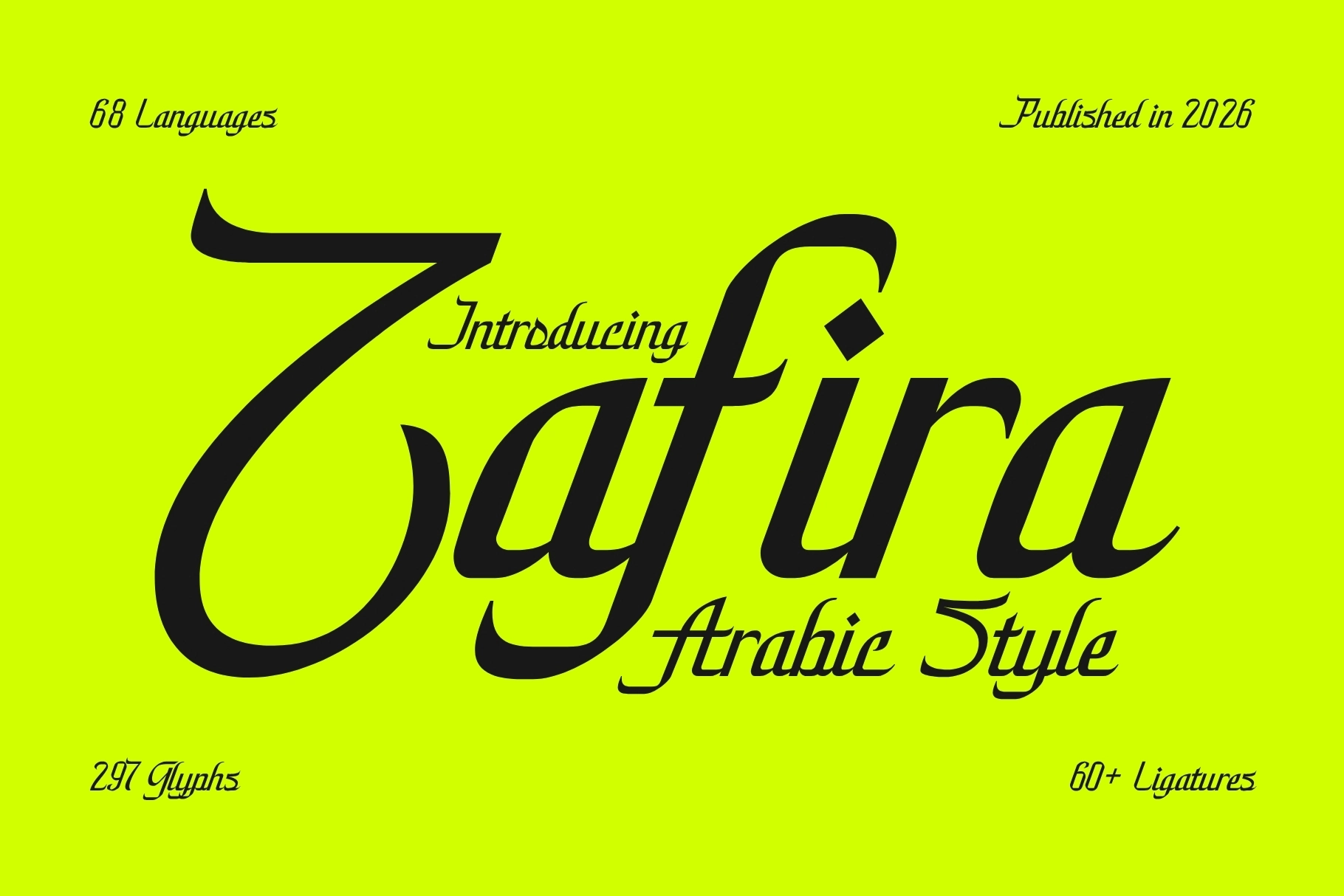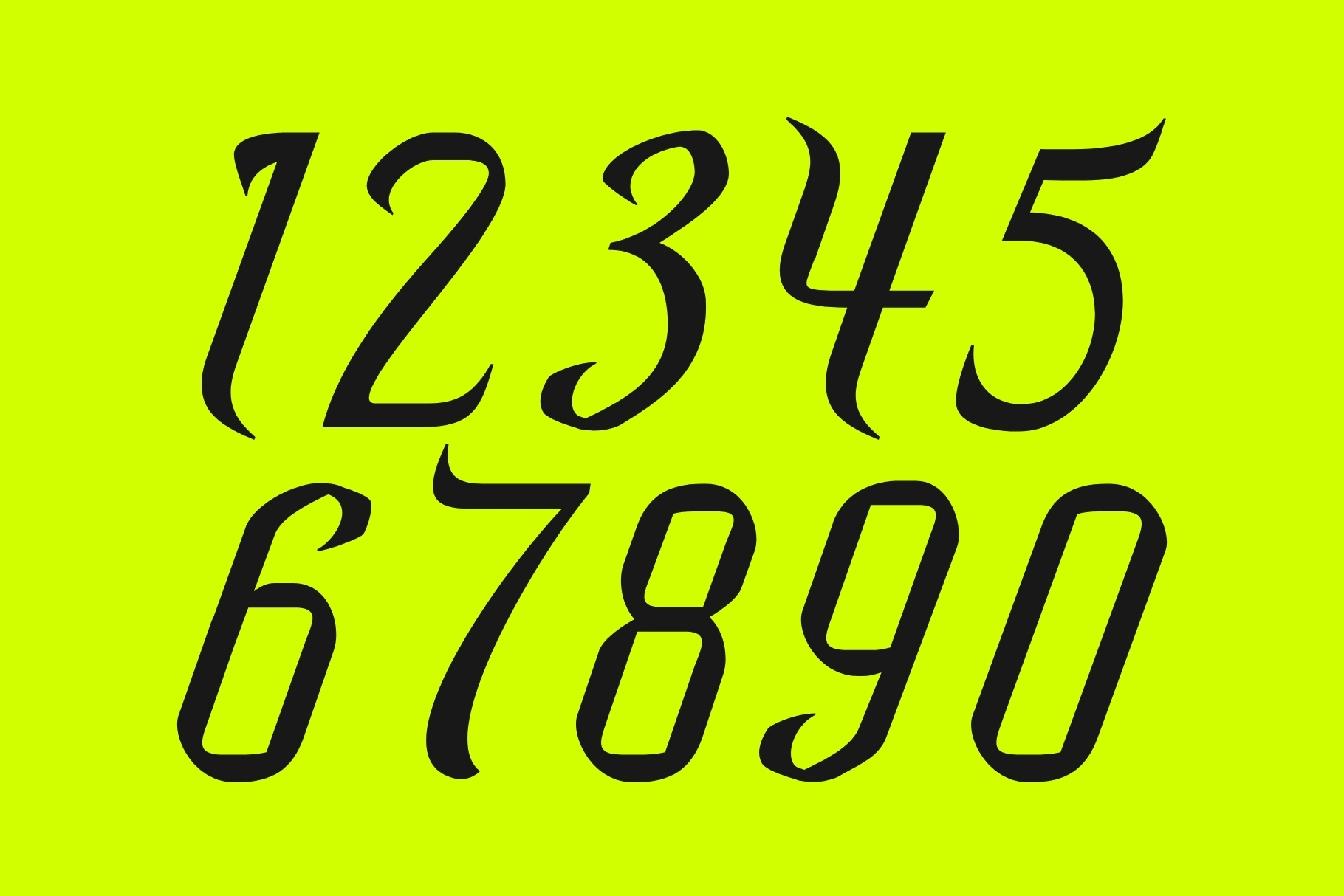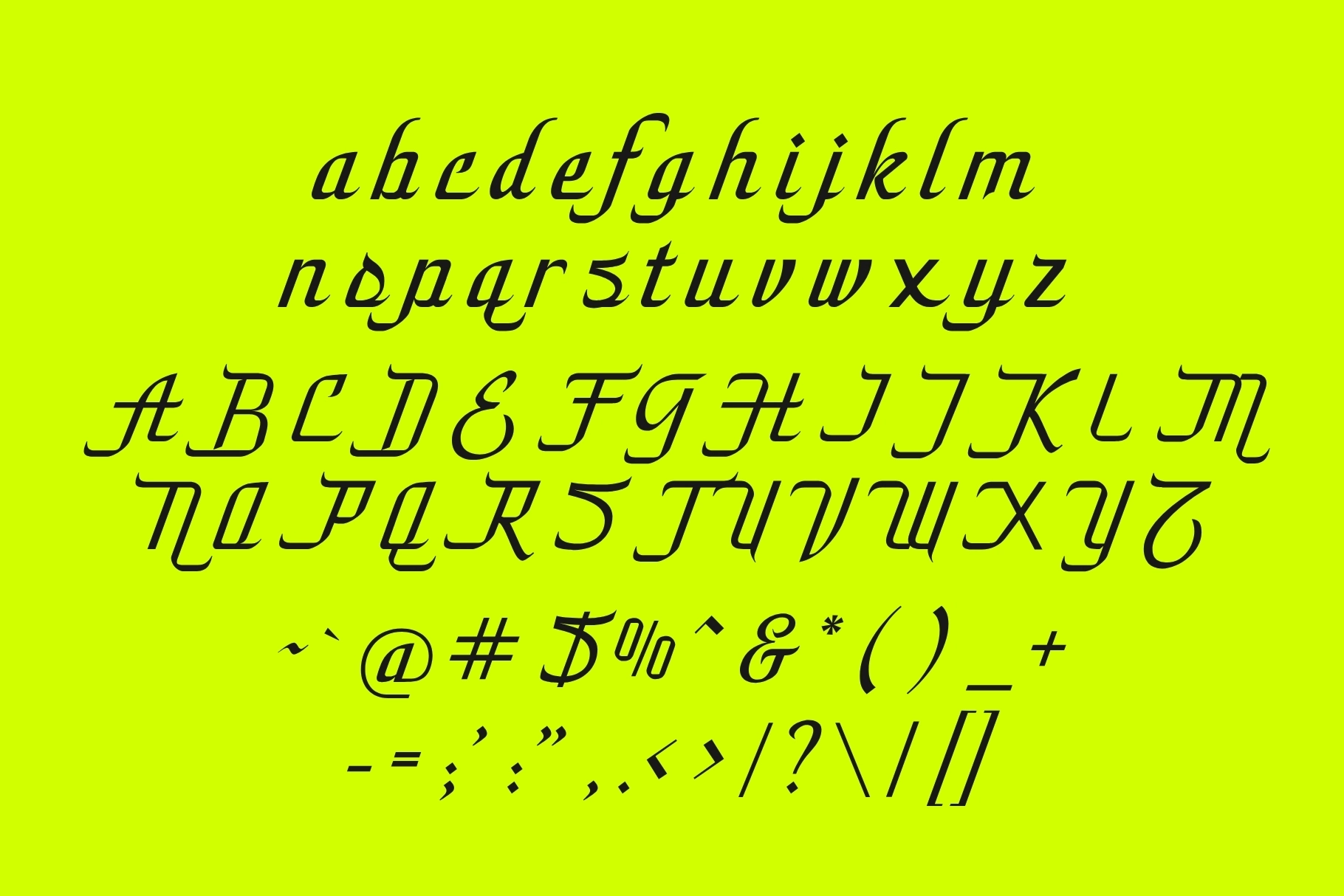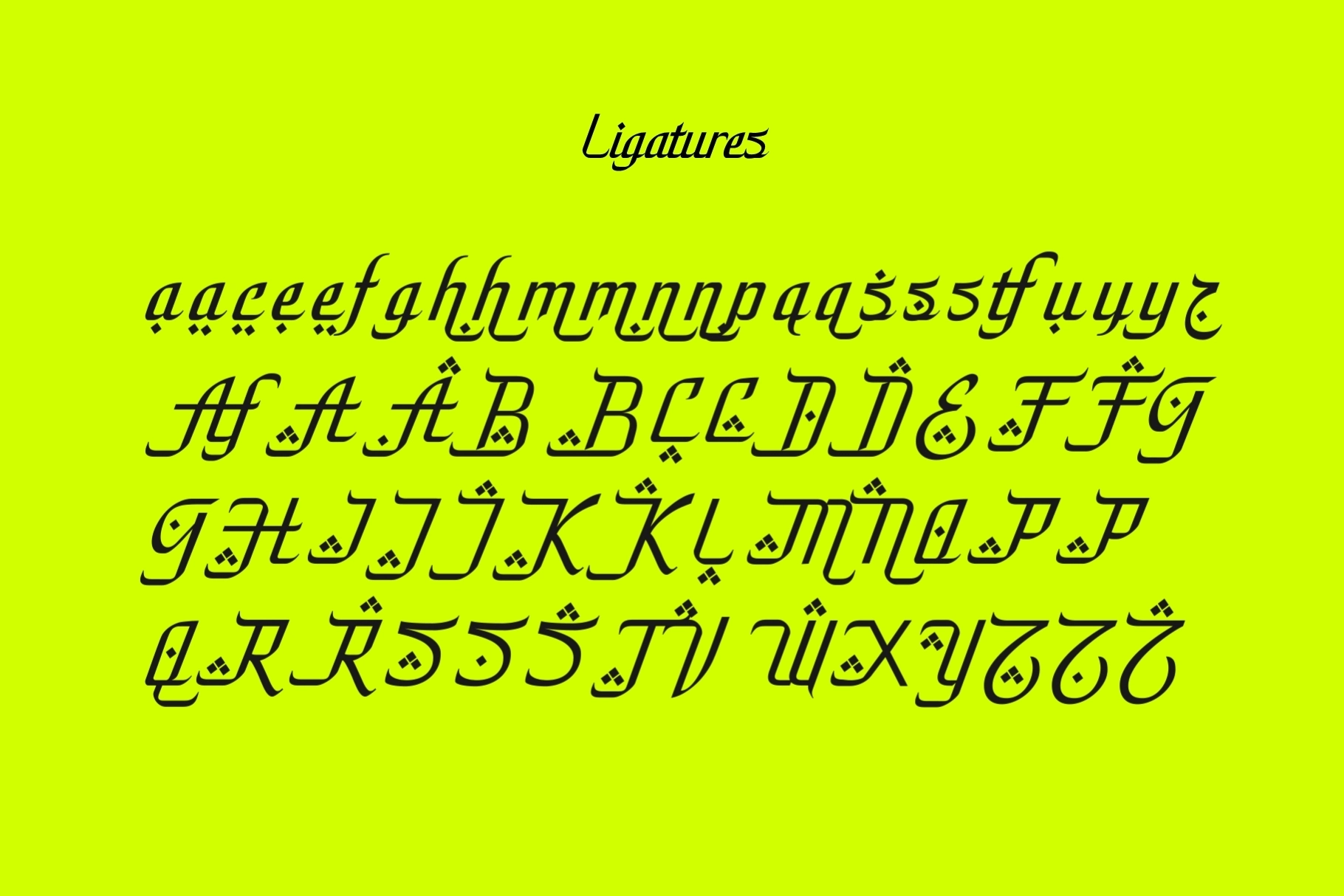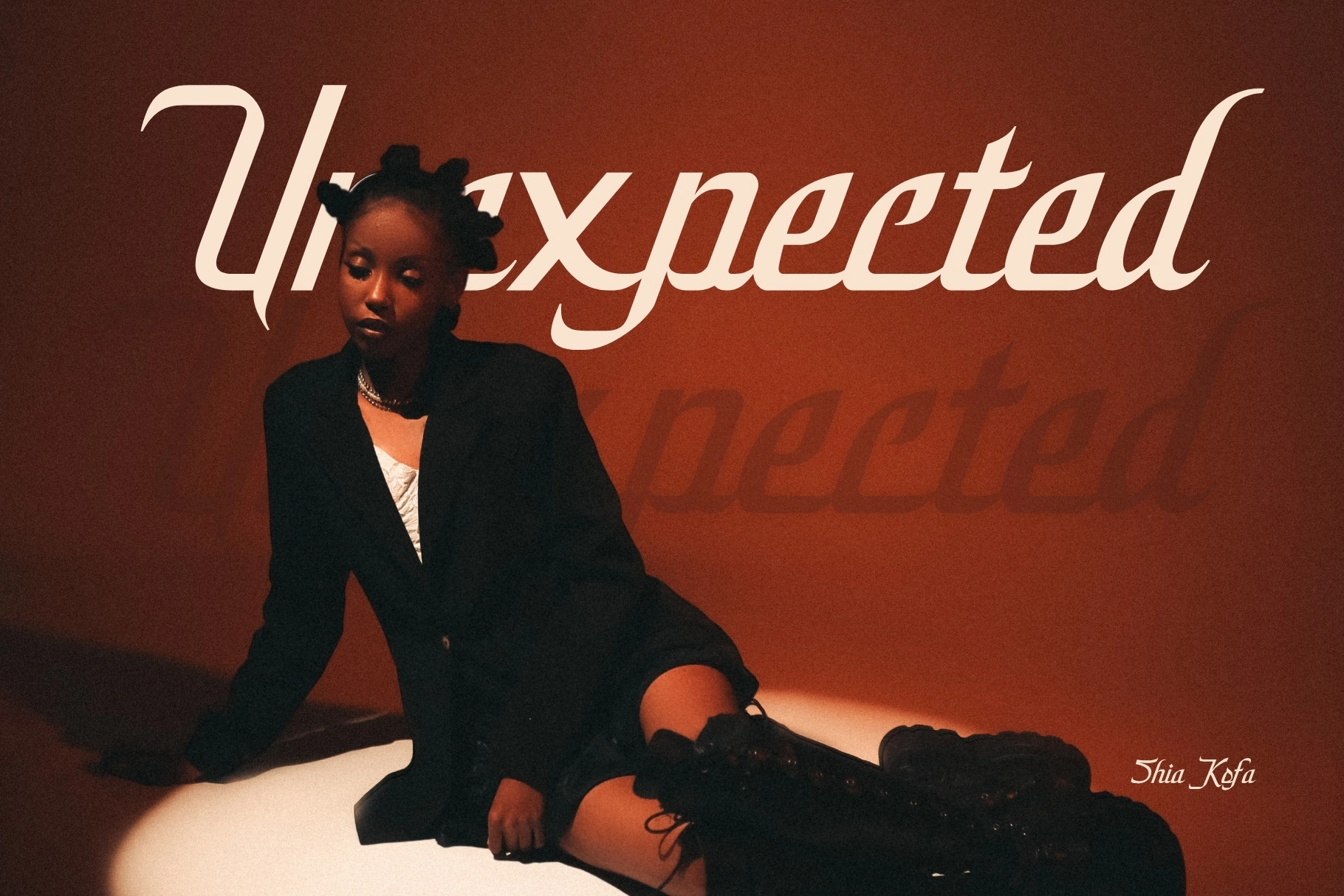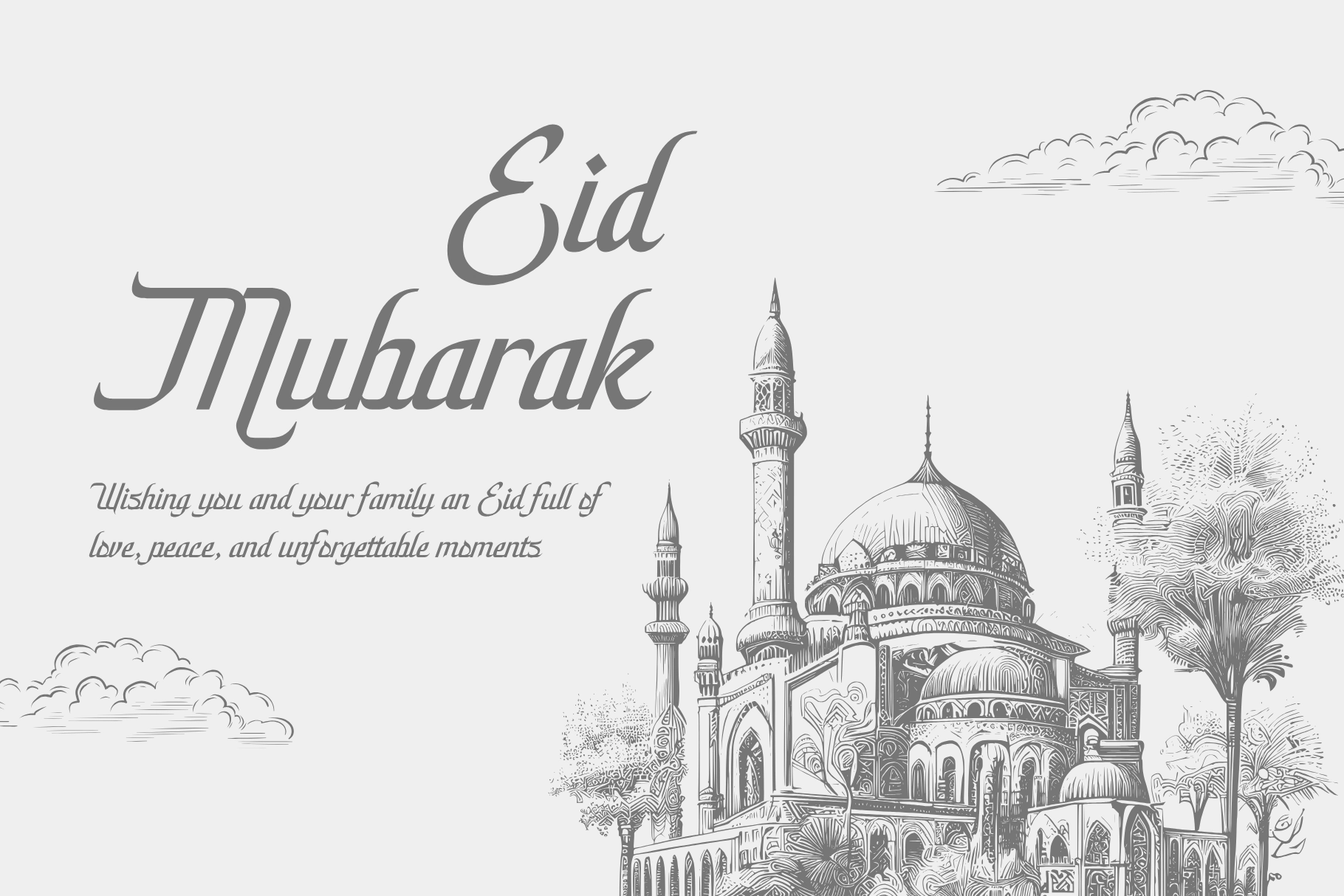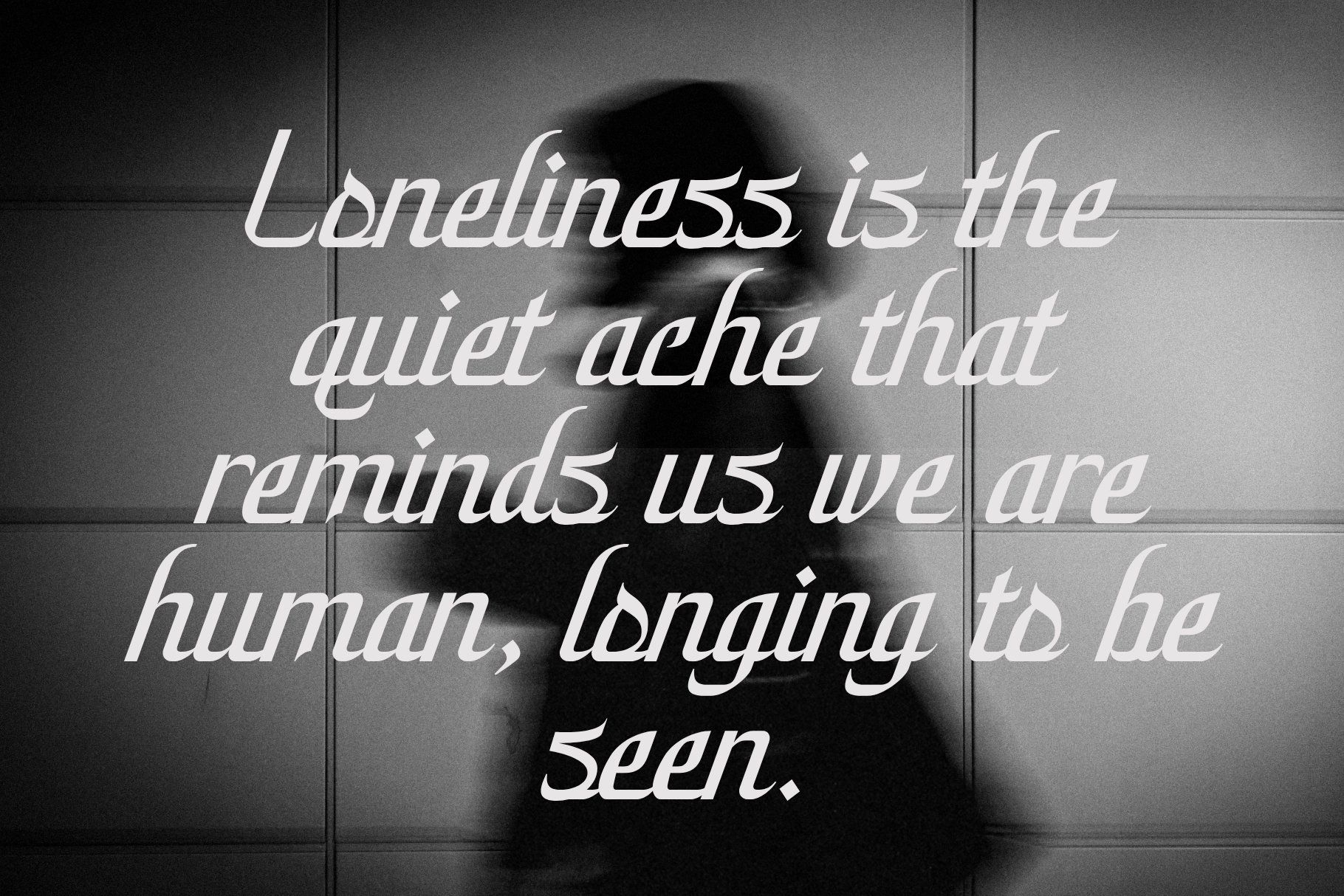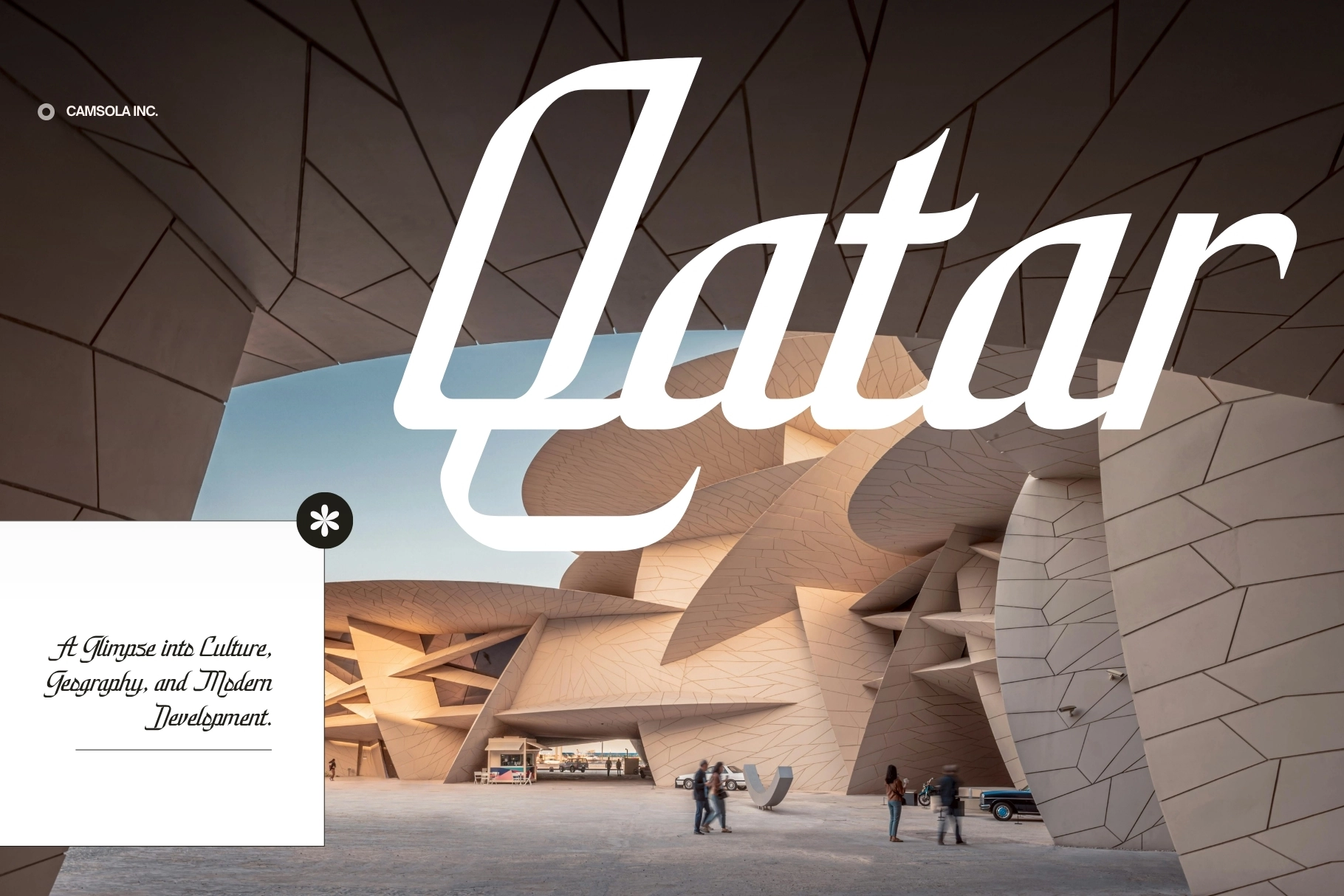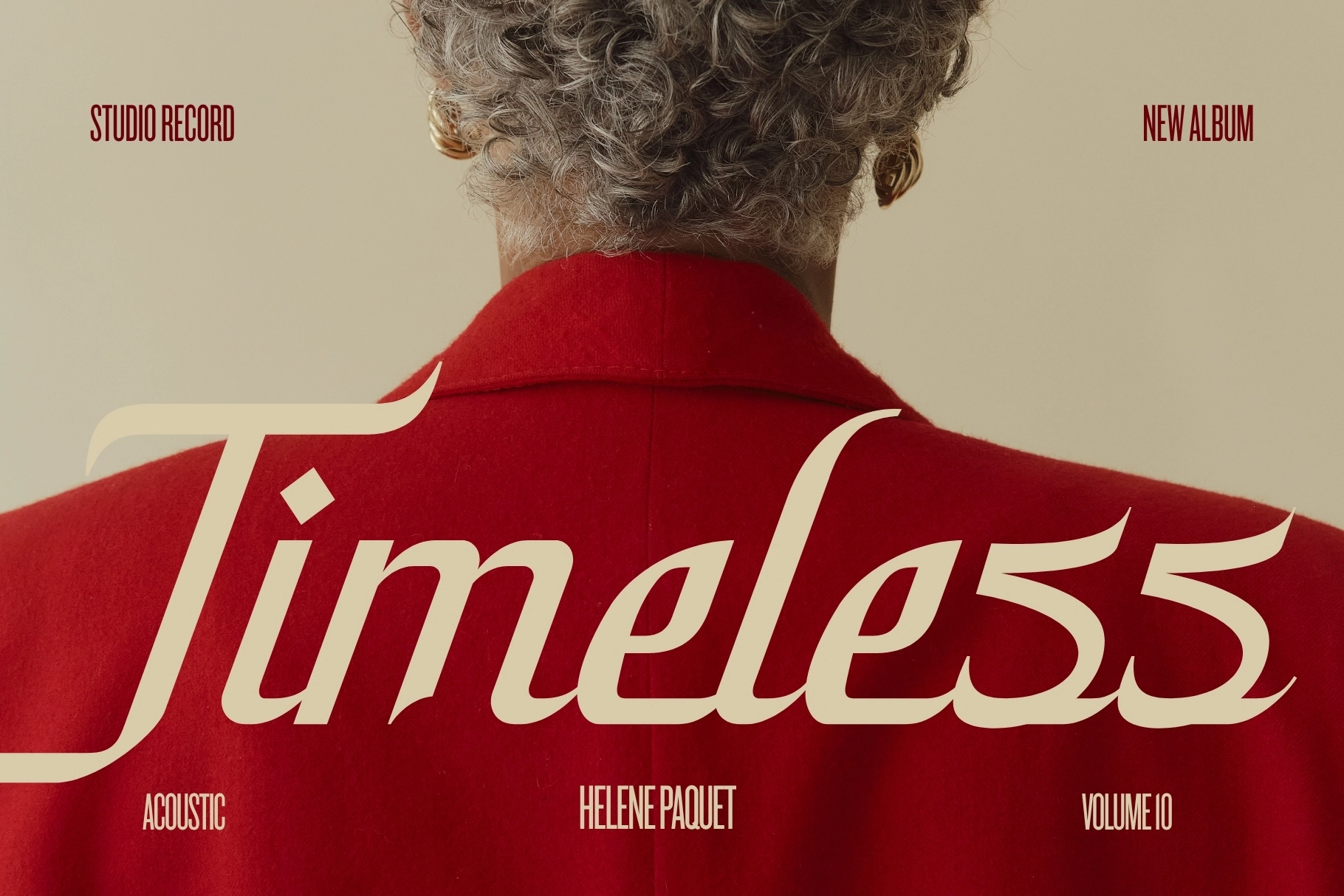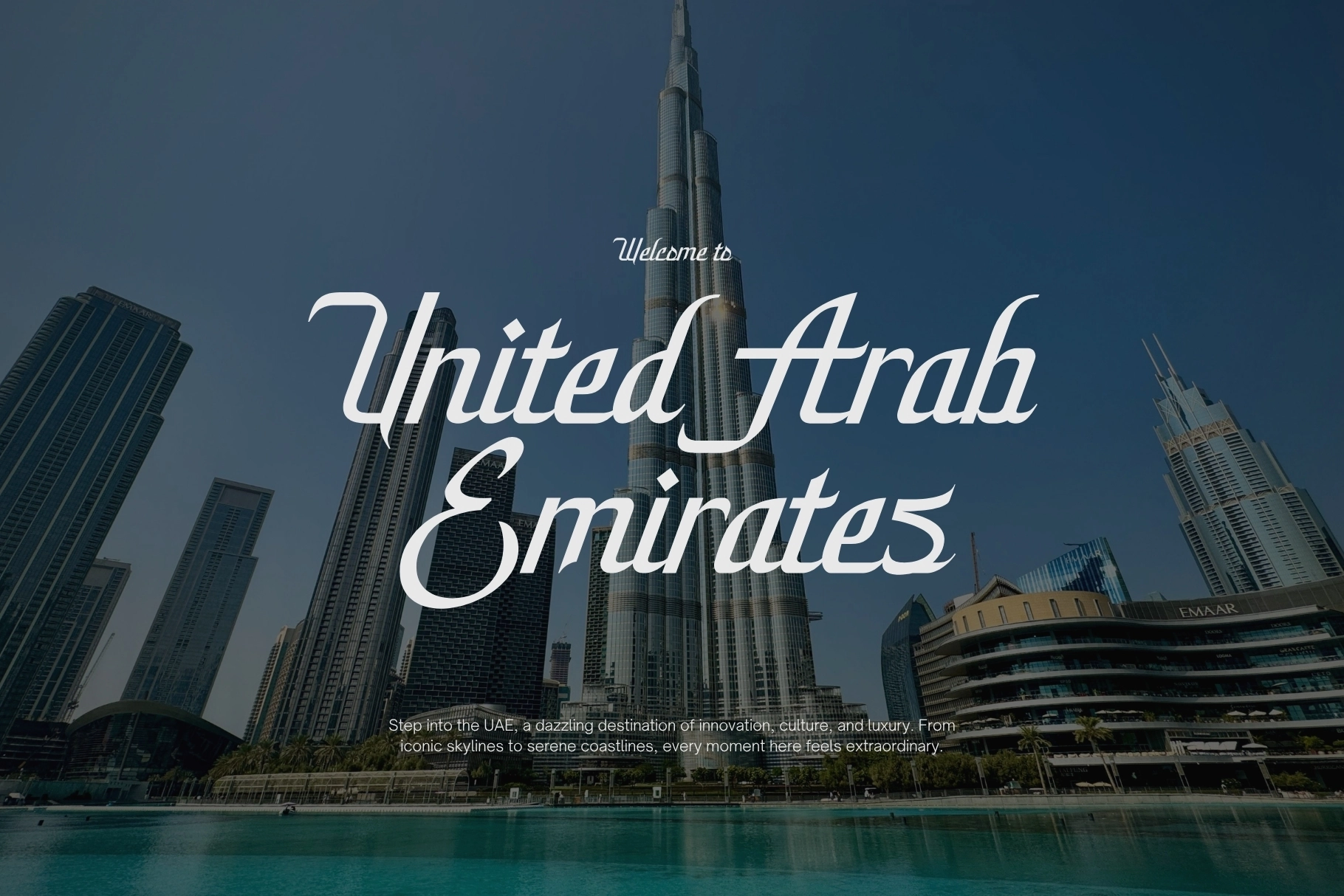
Zafira - Arabic Inspired Font
Zafira
Zafira, Arabic Inspired Font pairs sweeping, high-contrast strokes with pointed terminals and ornamental ligatures, recalling the poise of classical Arabic calligraphy filtered through Art Deco poster lettering. It suits luxury branding, perfume and cosmetic packaging, wedding stationery, magazine mastheads, restaurant identities, book covers, and cultural campaign visuals, especially where a polished, lyrical voice is needed.
- 60+ ligatures
- Stylistic alternates
- Punctuation & symbols